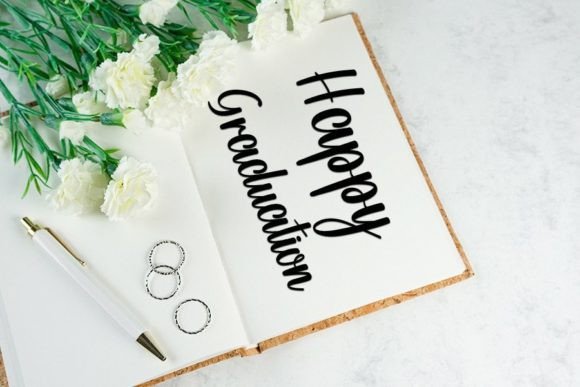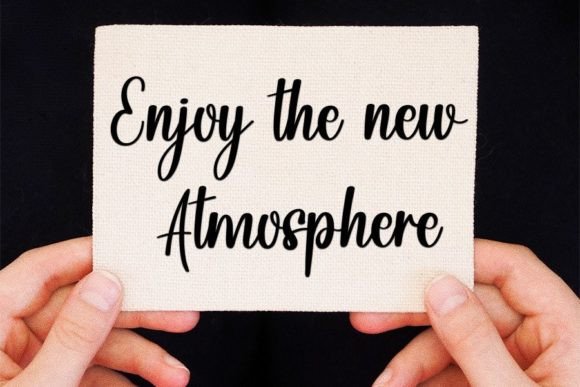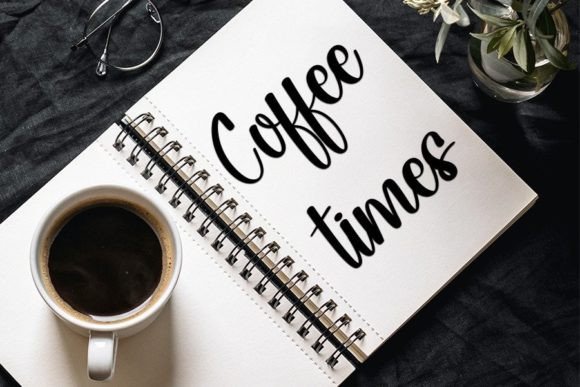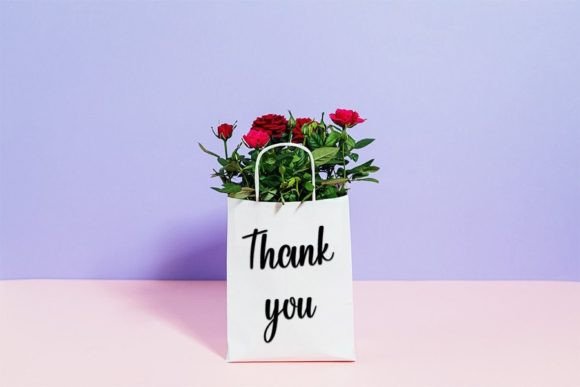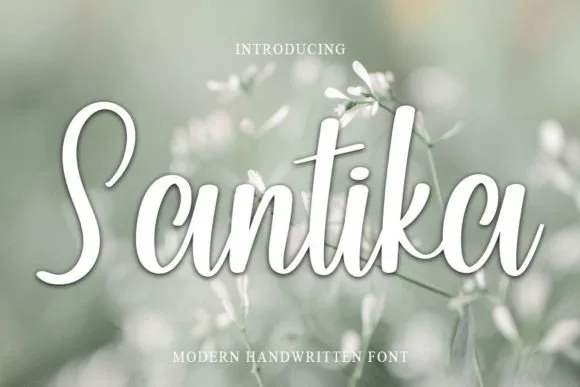
Santika Font
About Santika Font
“Santika” is a font that combines neatness and beauty with an elegant touch. Its distinct and timeless style makes it a perfect choice for a variety of creative projects. Whether you’re working on invitations, branding, stationery, quotes, or any other design endeavor, “Santika” adds a touch of sophistication and charm to your creations.
The neat and beautiful qualities of “Santika” make it ideal for projects that demand clarity and elegance. Its well-crafted letterforms and graceful curves create a harmonious visual experience, making it suitable for designs that require a polished and refined appearance. Whether used in headings, logos, or wedding invitations, this font adds a touch of luxury, ensuring that your designs exude a sense of high-quality craftsmanship.
In invitations and stationery, “Santika” adds a sense of romance and sophistication. Its elegant touch and timeless style make it perfect for wedding invitations, formal event stationery, or personalized notes. Whether used for invitation cards, menus, or thank-you notes, this font enhances the overall elegance of the communication, making it memorable and enchanting for recipients.
For branding, “Santika” lends a distinctive and elegant identity to the business. Its neat and beautiful handwritten style adds a touch of professionalism and creativity, making it suitable for upscale brands and businesses that want to convey a sense of exclusivity. Whether used in logos, business cards, or promotional materials, this font enhances the brand’s visual identity, leaving a lasting impression on clients and customers.
Quotes and inspirational graphics benefit from the elegant charm of “Santika.” Its timeless style adds a touch of grace to motivational quotes, love messages, or poetic phrases. Whether shared on social media, printed as posters, or featured in digital designs, this font enhances the visual impact of the words, making them visually captivating and emotionally resonant.
In summary, “Santika” is more than just a font; it’s a design element that adds elegance and sophistication to your projects. Its neat and beautiful handwritten style, combined with its timeless charm, makes it a valuable asset for various creative applications. By incorporating “Santika” into your designs, you infuse them with a sense of refined beauty, ensuring that your projects are not only visually appealing but also exude an aura of understated luxury and class.